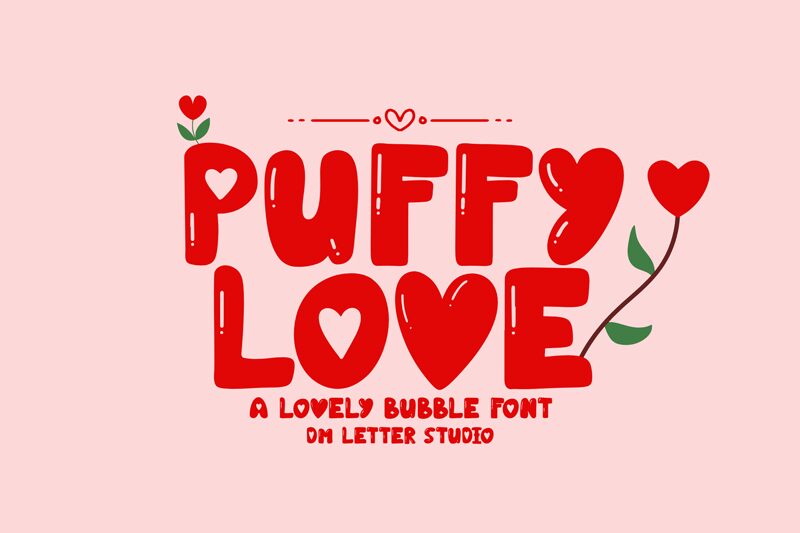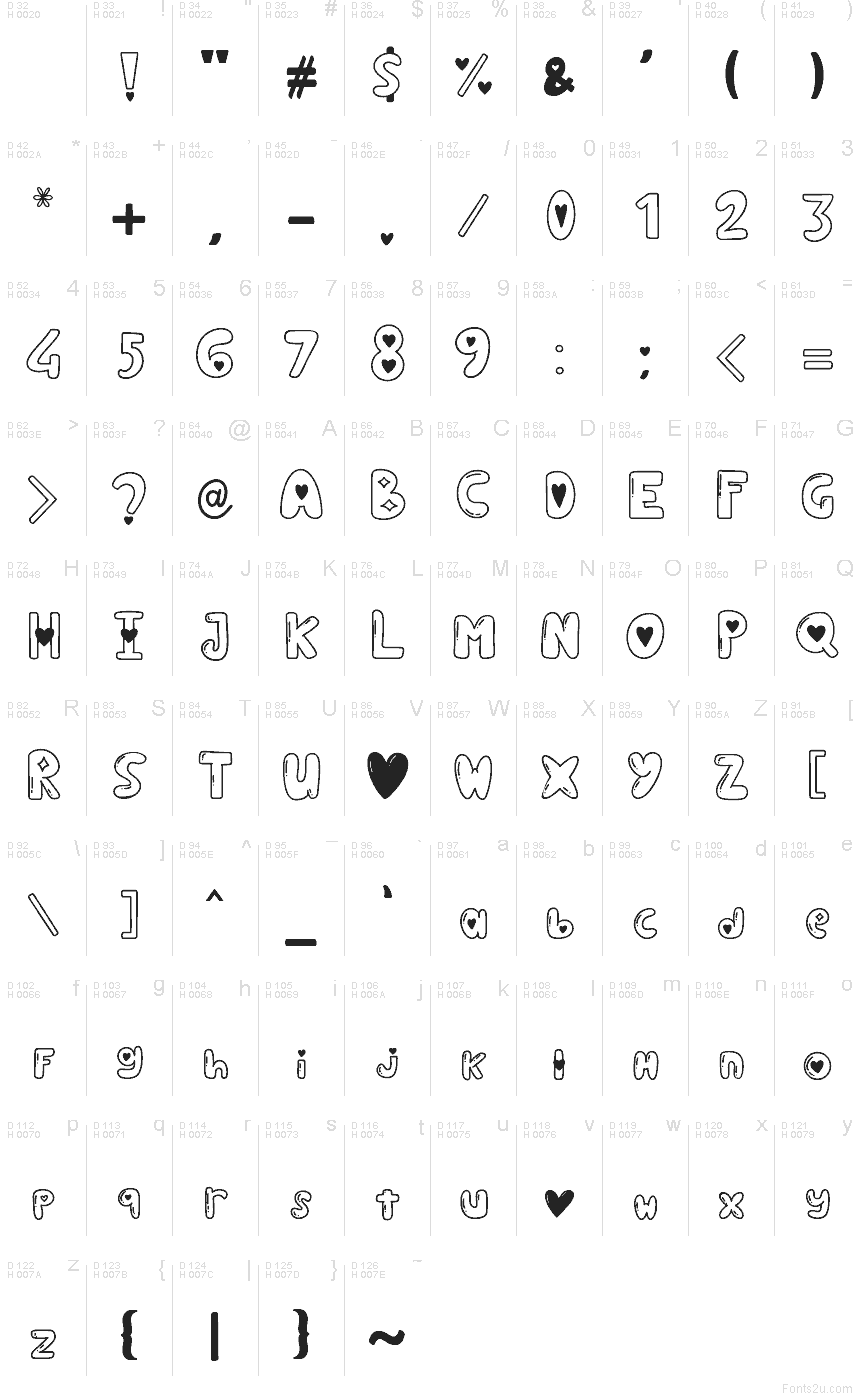
Puffy Love font by DM Letter Studio - Dimas Prasetyo is a free holiday valentine font that turns every word into a squishy, candy-coated doodle. The rounded, balloon-like outlines, scattered dots, and playful heart shapes feel like they’re drawn with a thick gel pen on a love note, giving designs an instant handmade charm. It’s light, bubbly, and a little messy in the best way-like a heartfelt card rather than a stiff, formal script.
Using Puffy Love, this free font shines on Valentine’s cards, classroom worksheets, kids’ party invites, stickers, social posts, and DIY gift tags where you want sweet, goofy affection rather than polished romance. Set it big to show off the heart motifs and textured outlines, and pair it with a clean sans serif for body text so the puffy letters stay the focus.